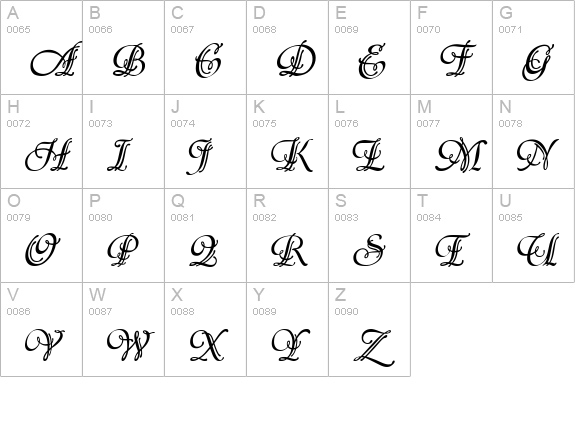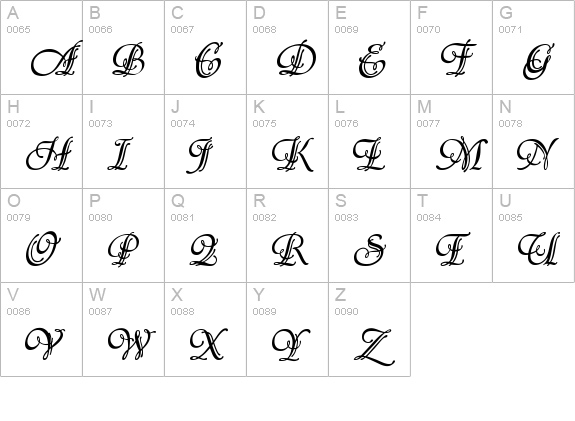
Symphony font is a stunning display typeface that exudes elegance and sophistication. With its graceful curves and stylish letterforms, Symphony font is sure to elevate any design project to a new level of refinement. This versatile font is perfect for adding a touch of class to invitations, logos, posters, and more. The best part about Symphony font is that it is completely free to download at FontsMarket.com. Whether you're a professional designer or just looking to add some flair to your personal projects, Symphony font is a fantastic choice. Don't miss out on this opportunity to enhance your designs with this beautiful and freely available typeface.